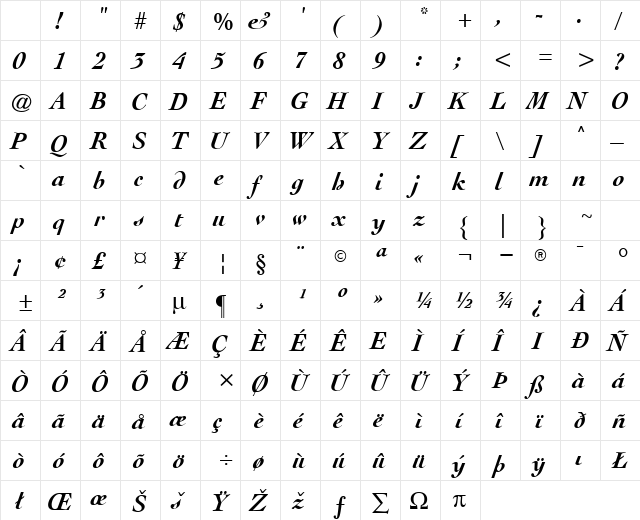
Collage is a composed and adaptable typeface that performs quietly and consistently across a wide range of design contexts. The slanted form adds forward momentum and visual energy. Its bold stroke weight gives it real presence on the page.
Pro Tip: Use Collage for emphasis, pull quotes, and subheadings where its slanted energy can add rhythm to the layout.